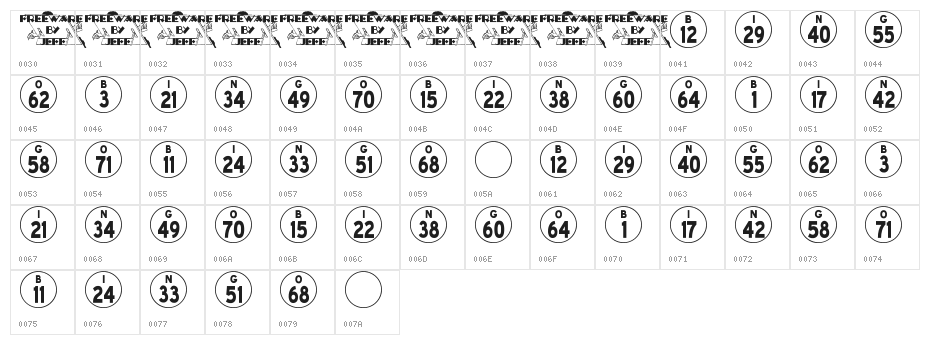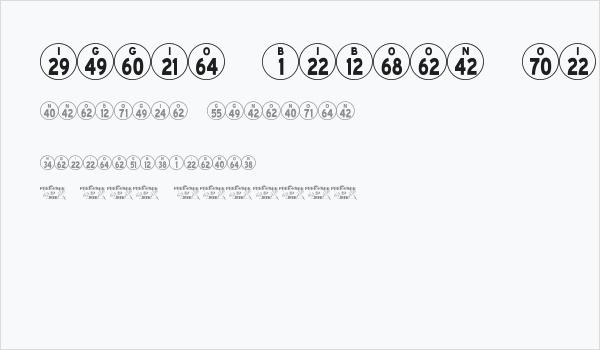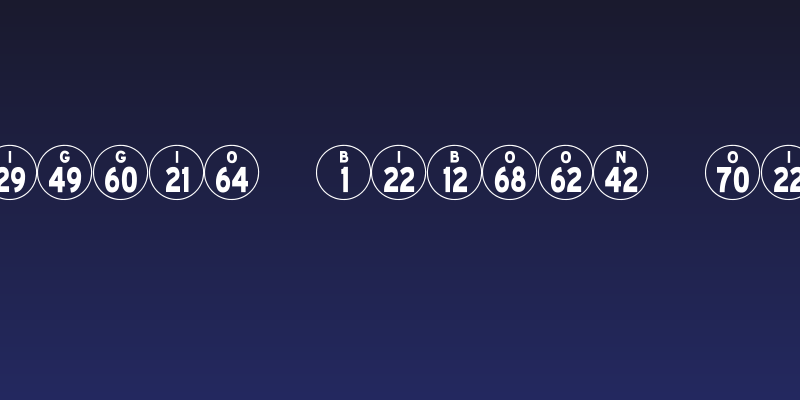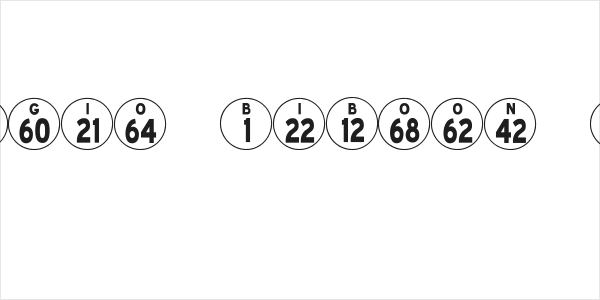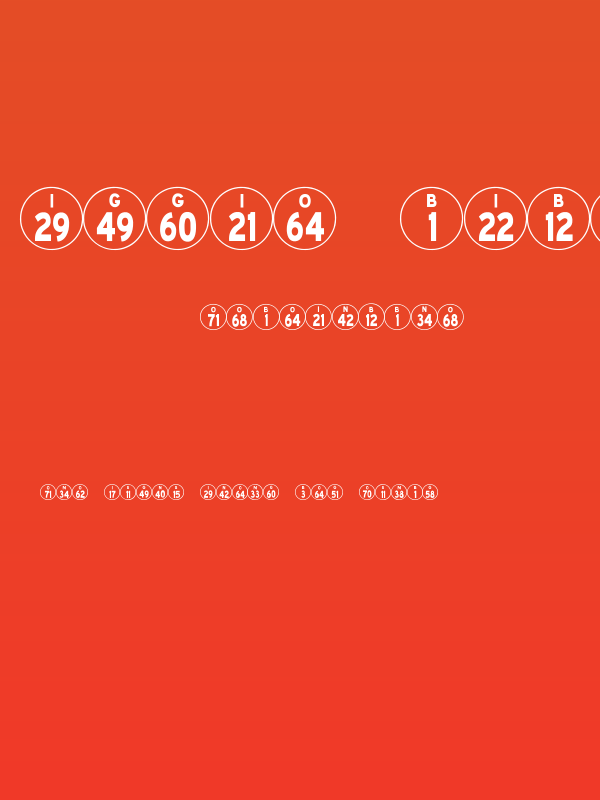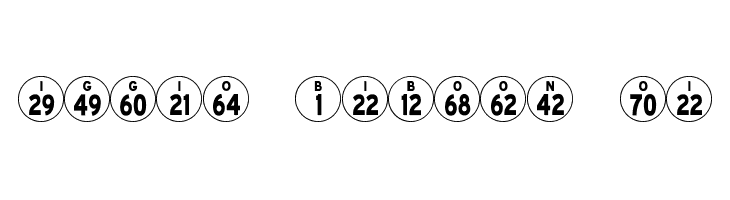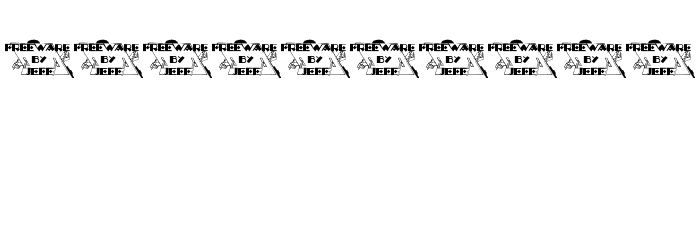
Bingo Player JL Font
| Caso d'uso | Headlines, Logos, Educational Materials |
| Progetti proposti | This font is perfect for game designs, educational materials, playful branding, and any project requiring clear, bold text. |